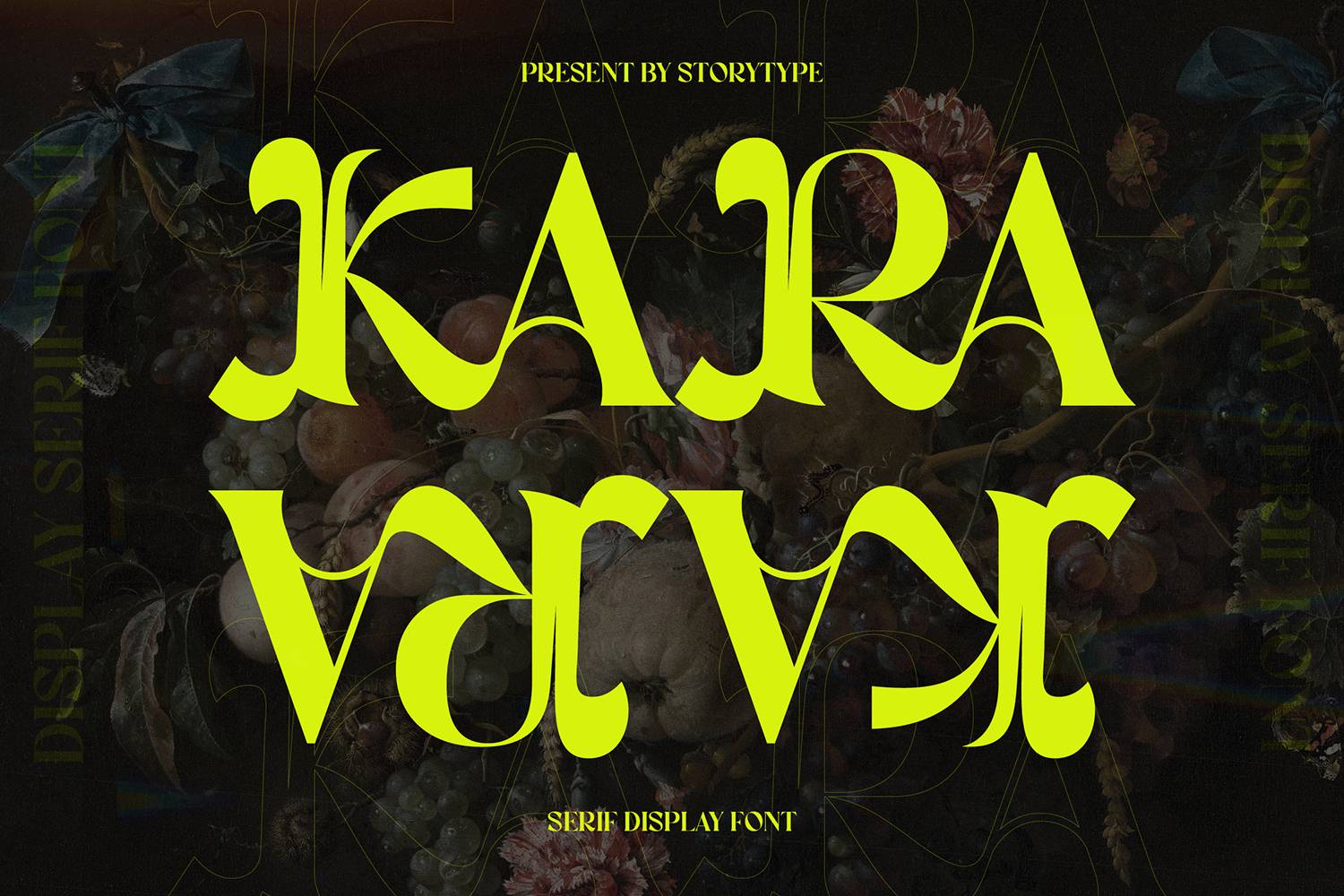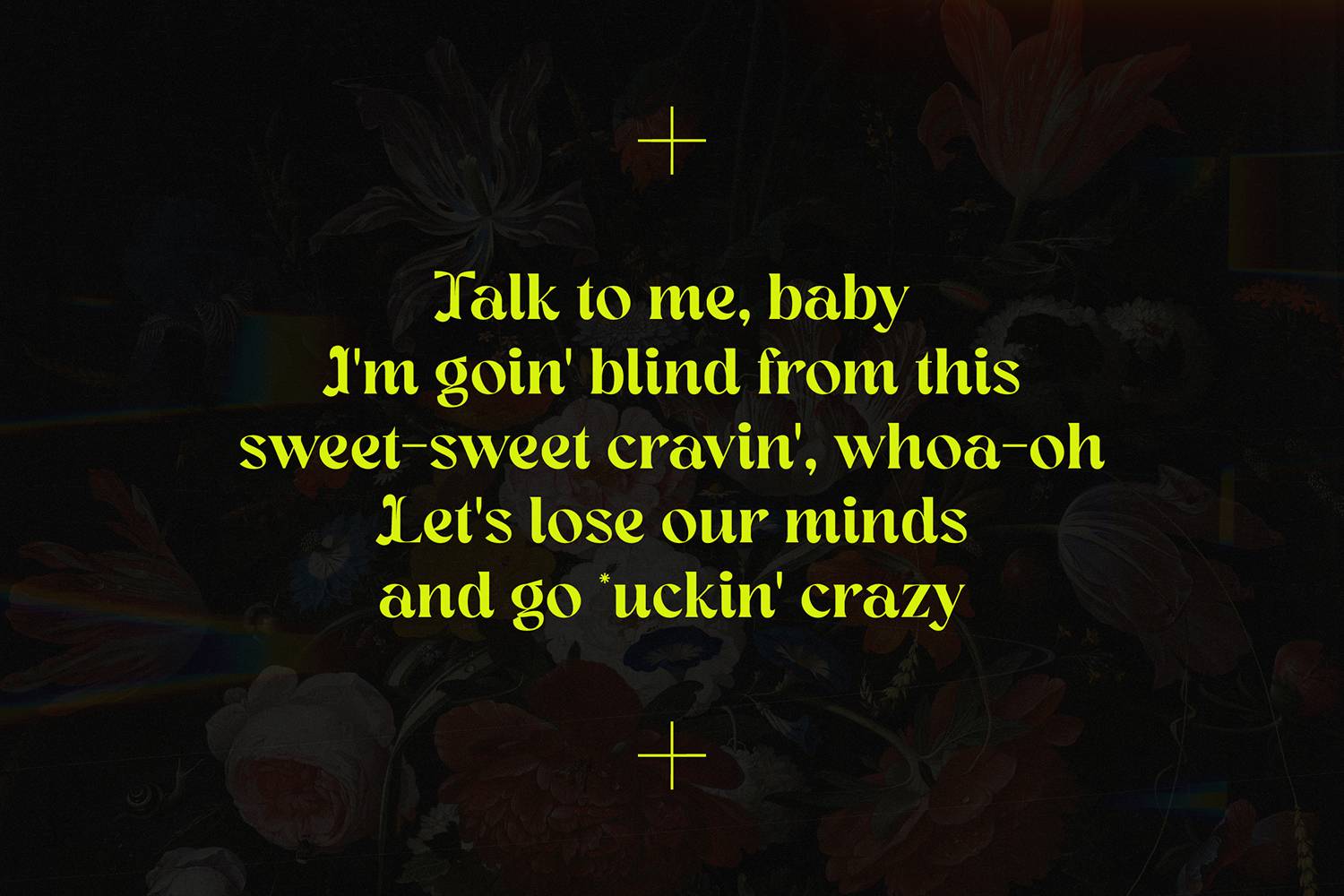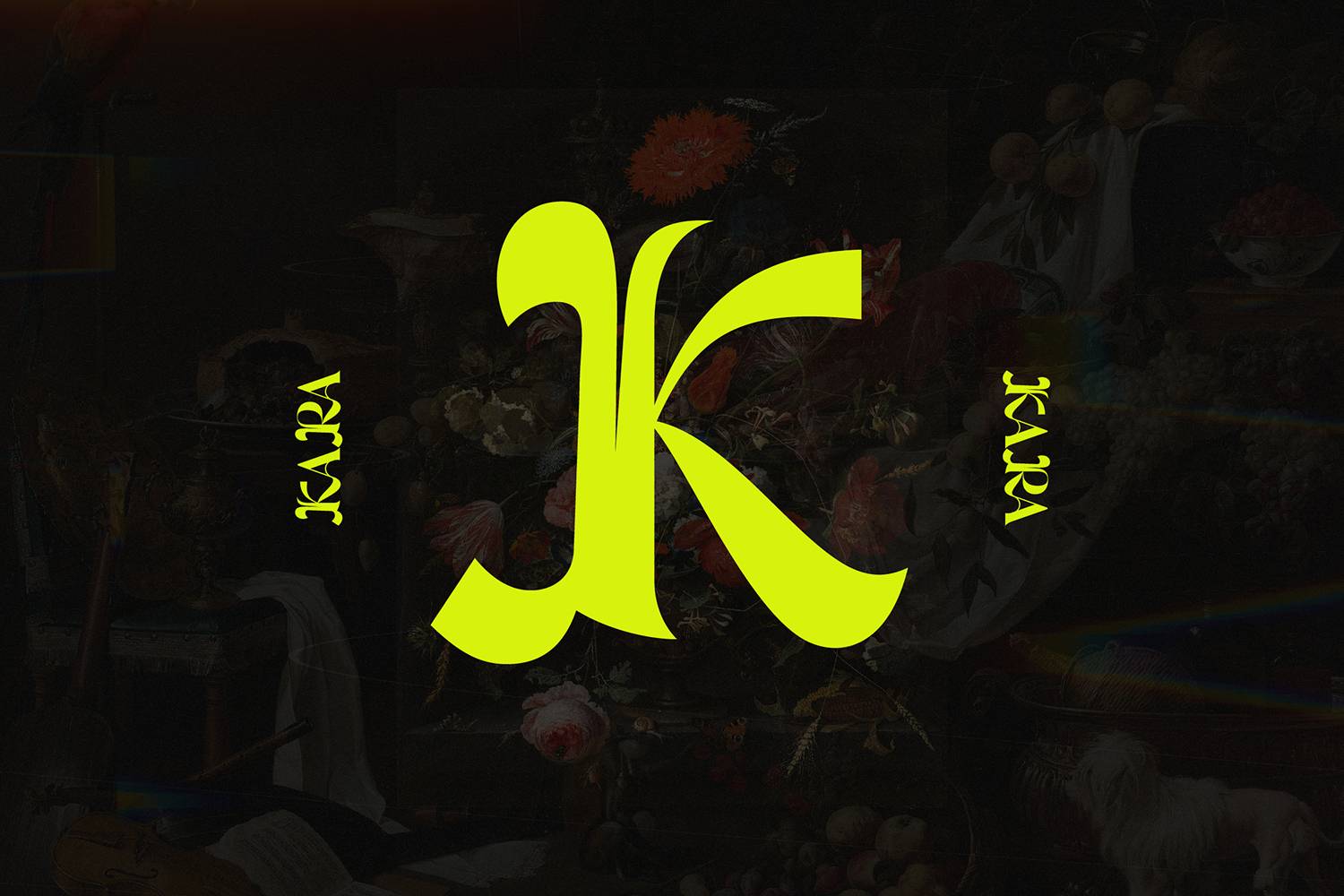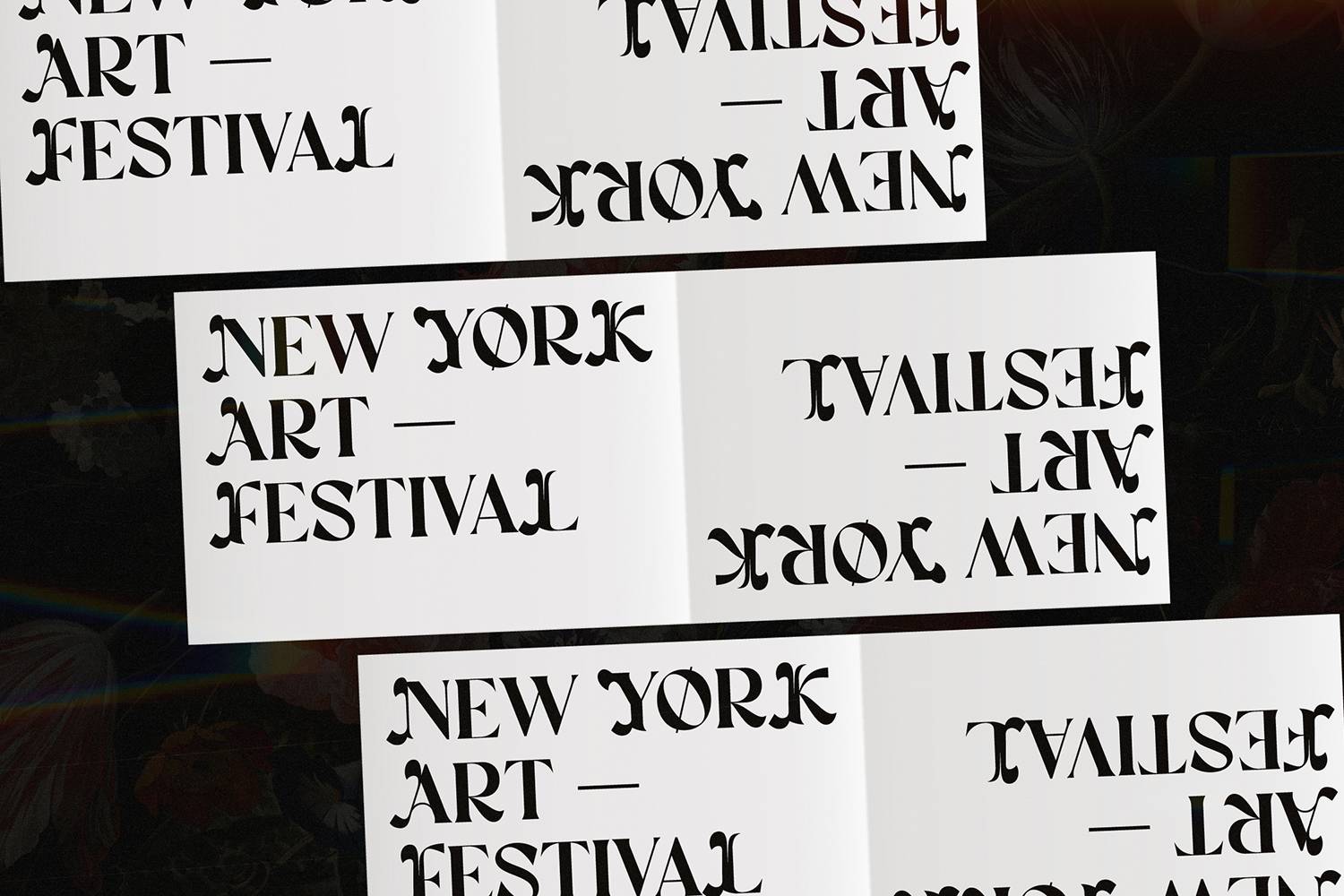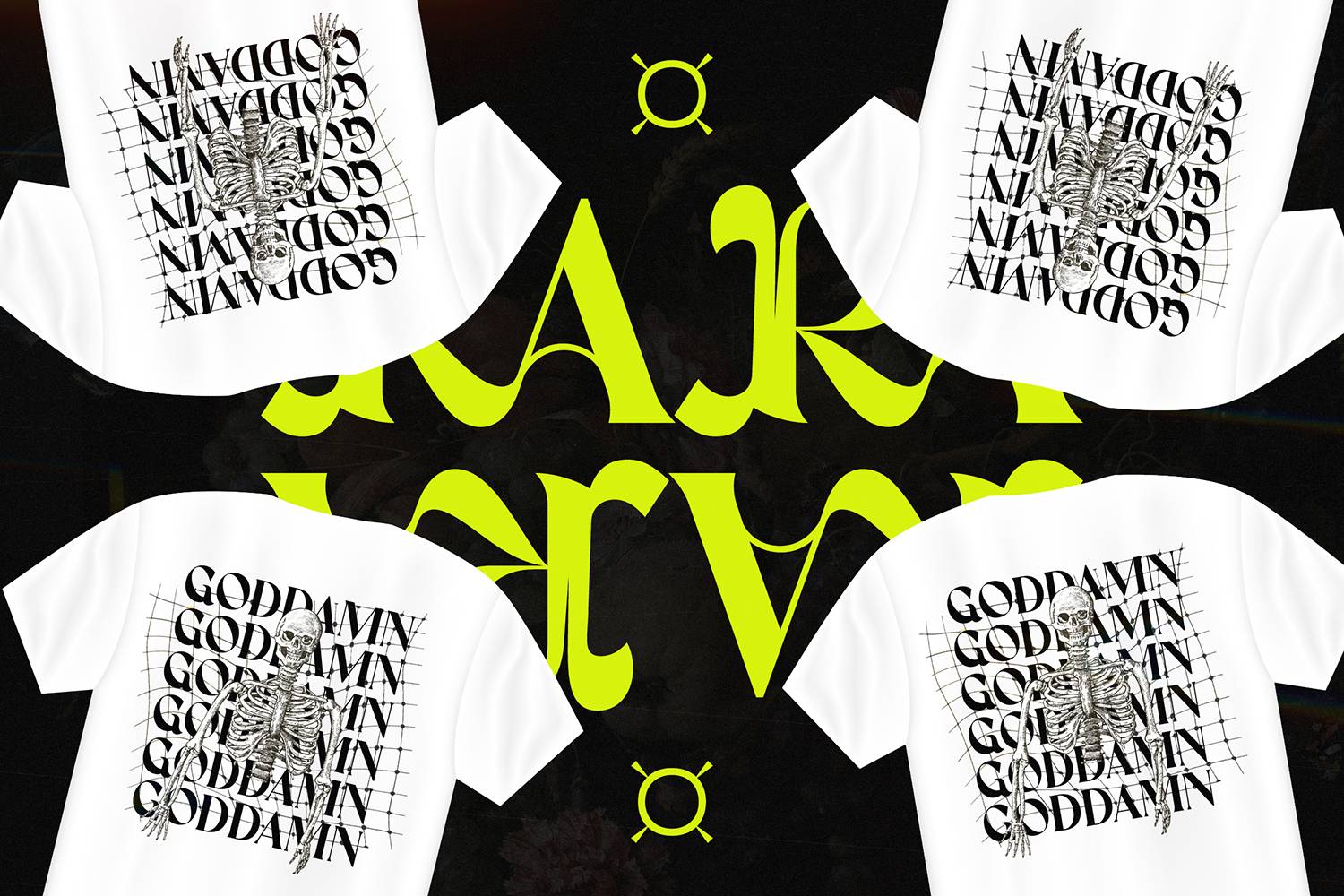
Kara is a striking modern serif font characterized by high contrast between thick and thin strokes and elegant bracketed serifs, giving it a refined and sophisticated look. Its sharp, stylish letterforms with unique details, such as the distinctive tail on the Q, make it ideal for luxury branding, editorial headlines, and high-end packaging where a bold yet classy impression is desired. This font balances contemporary flair with classic elegance, making it perfect for fashion, magazines, and logos that aim to stand out with timeless style.
Kara Font